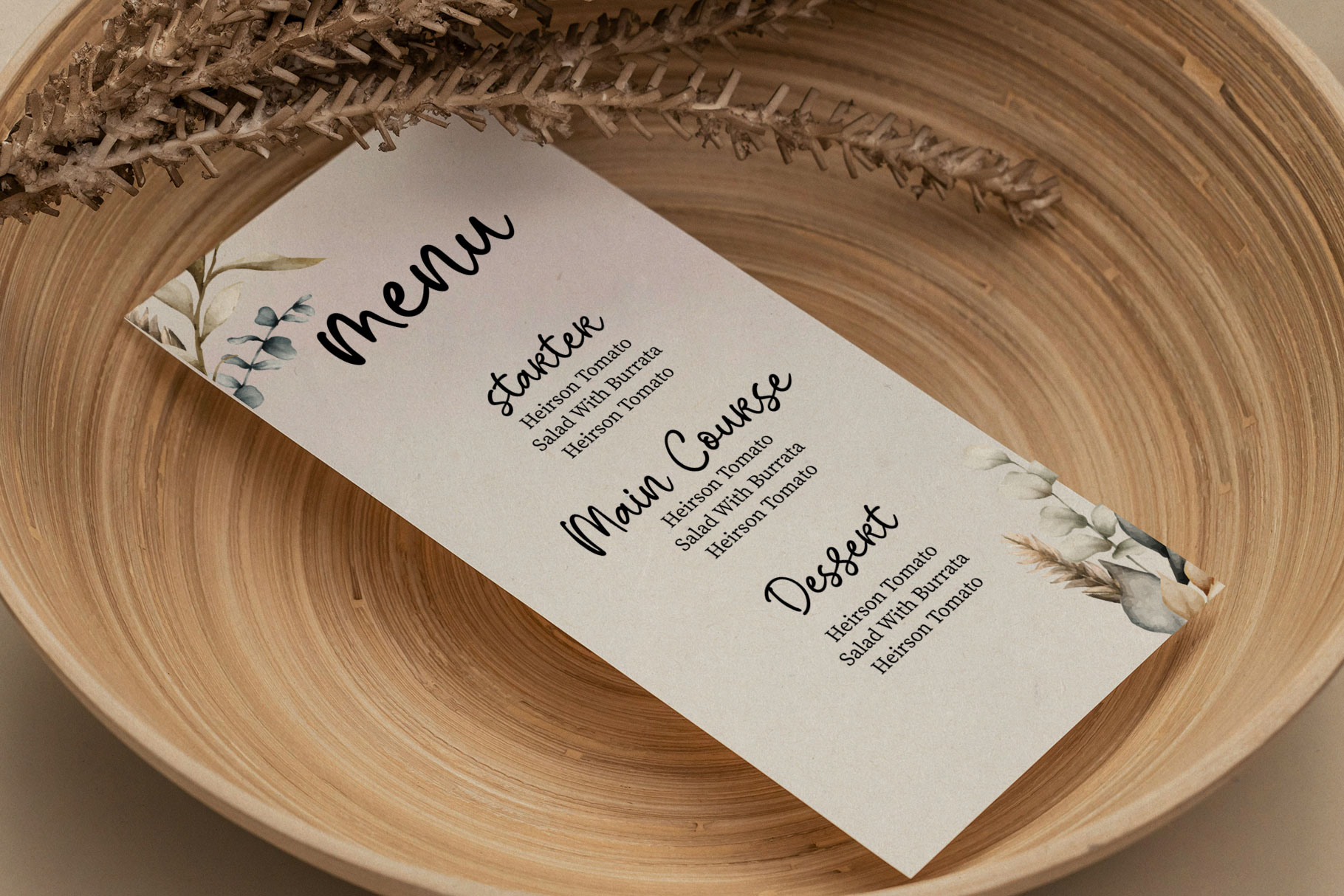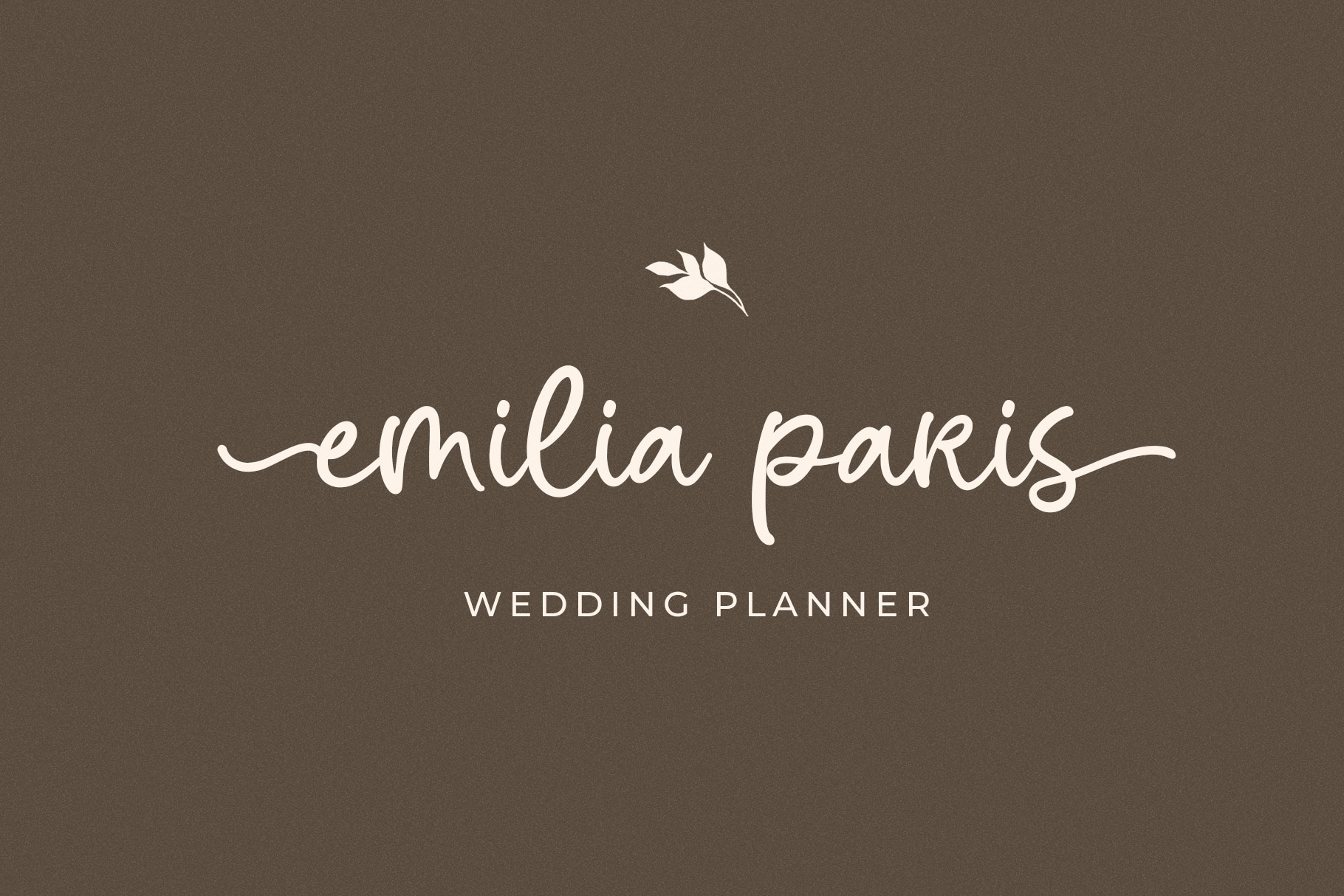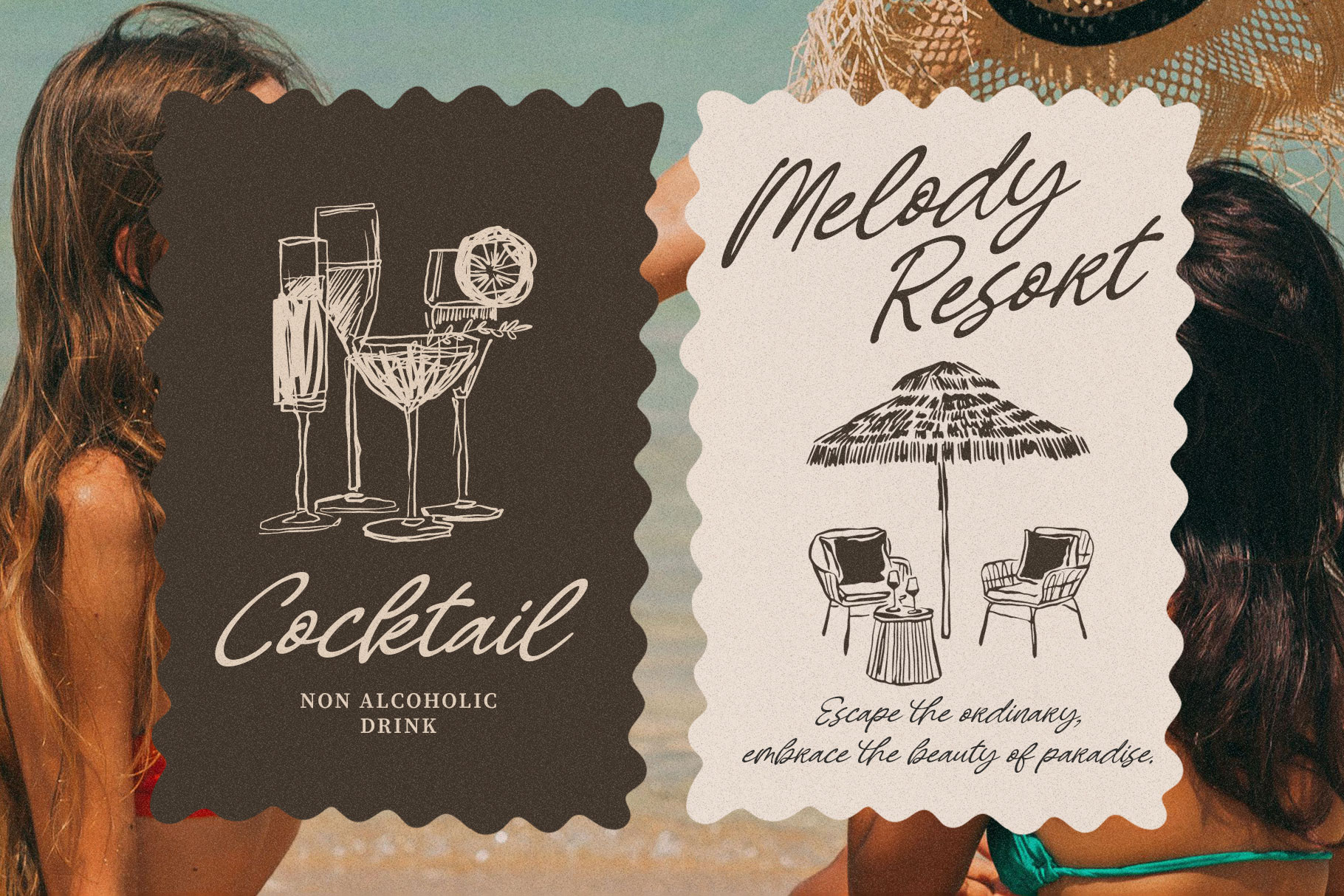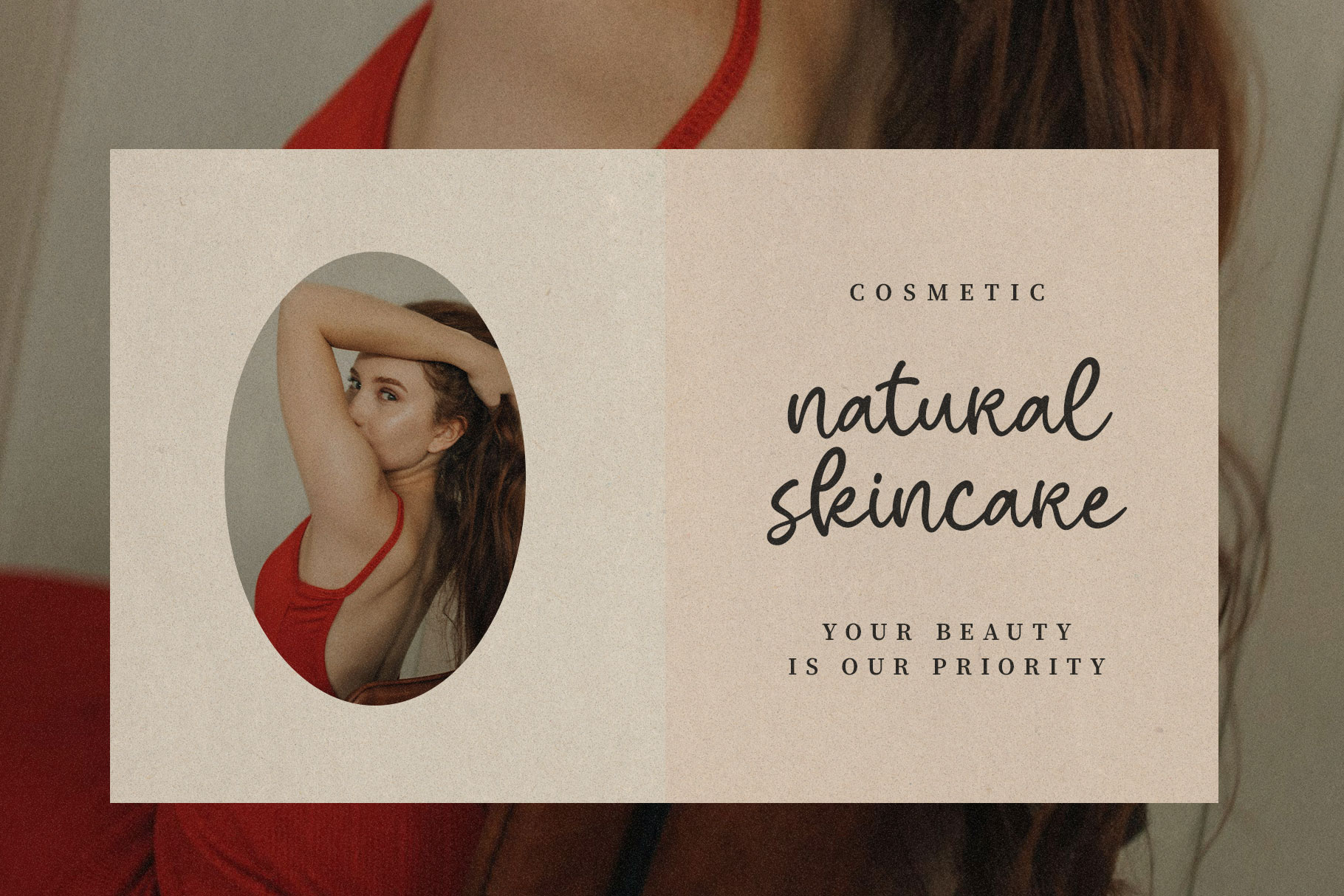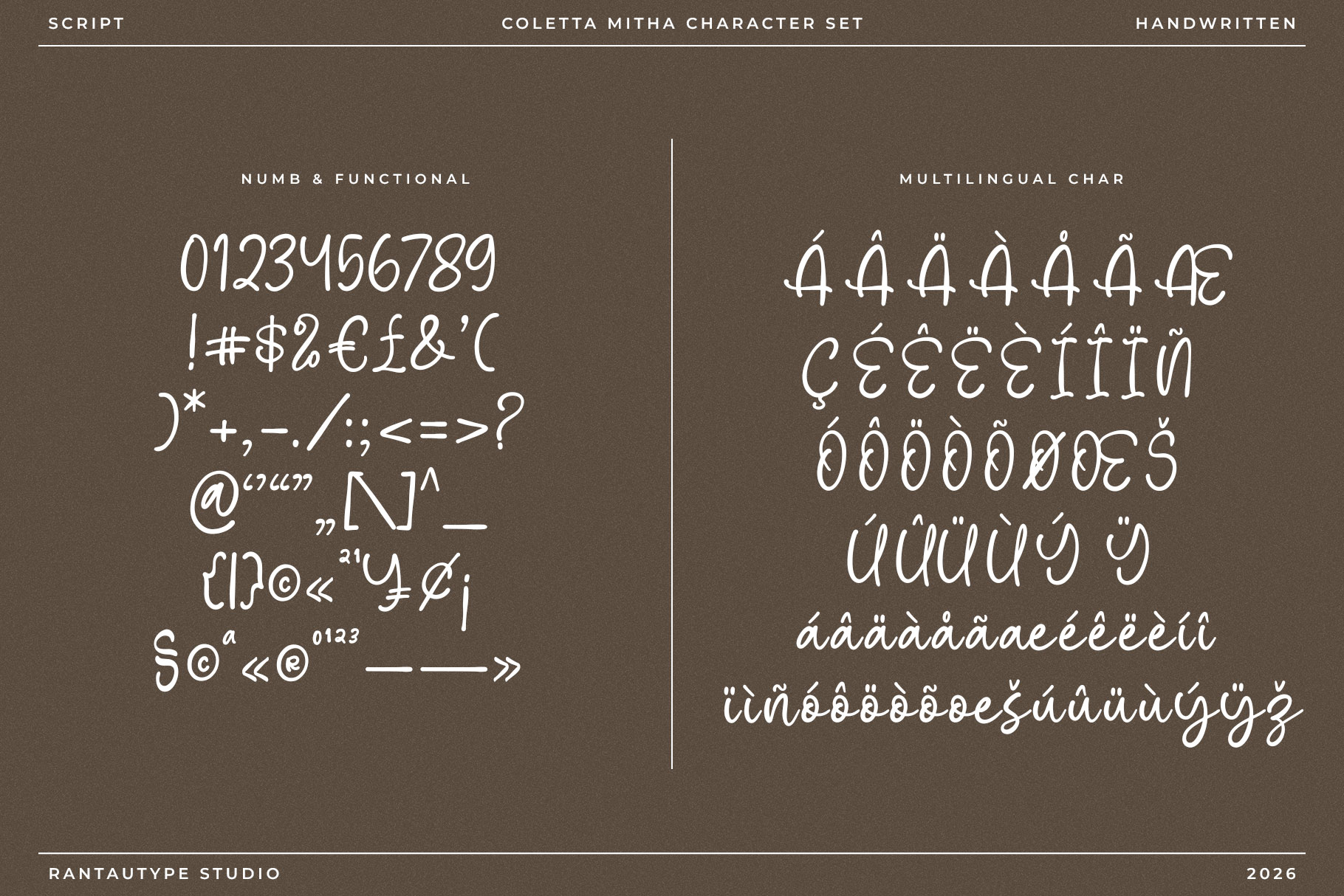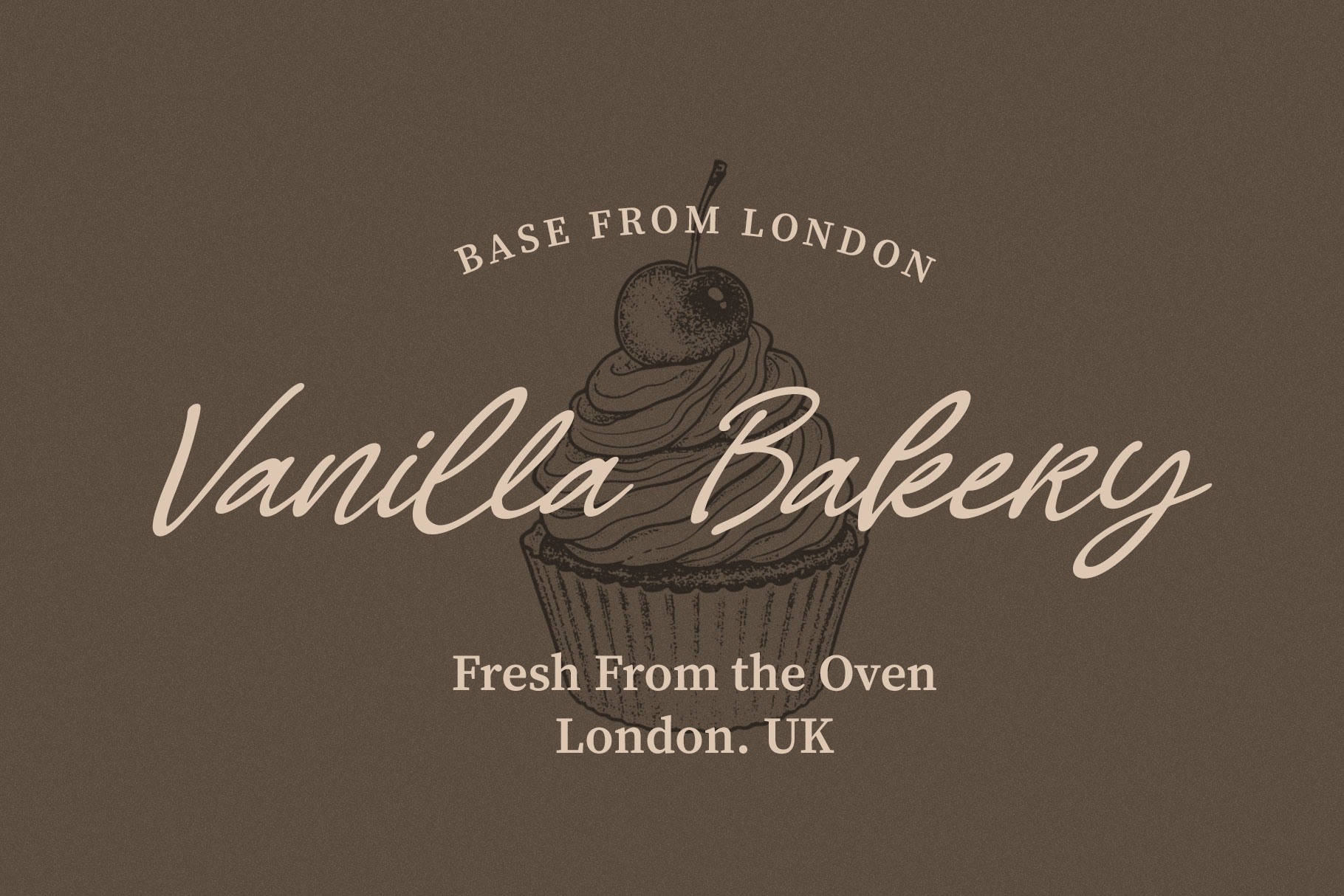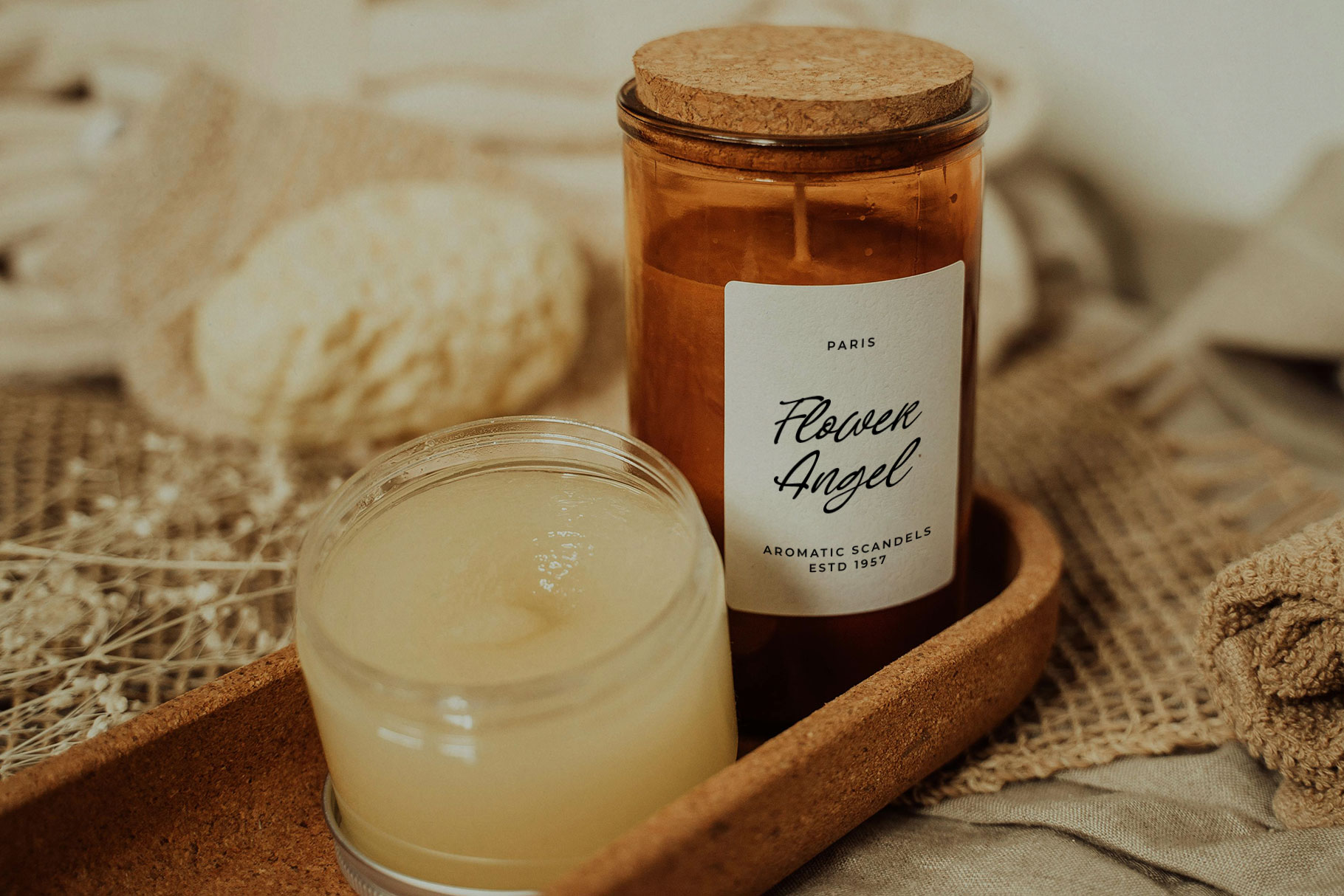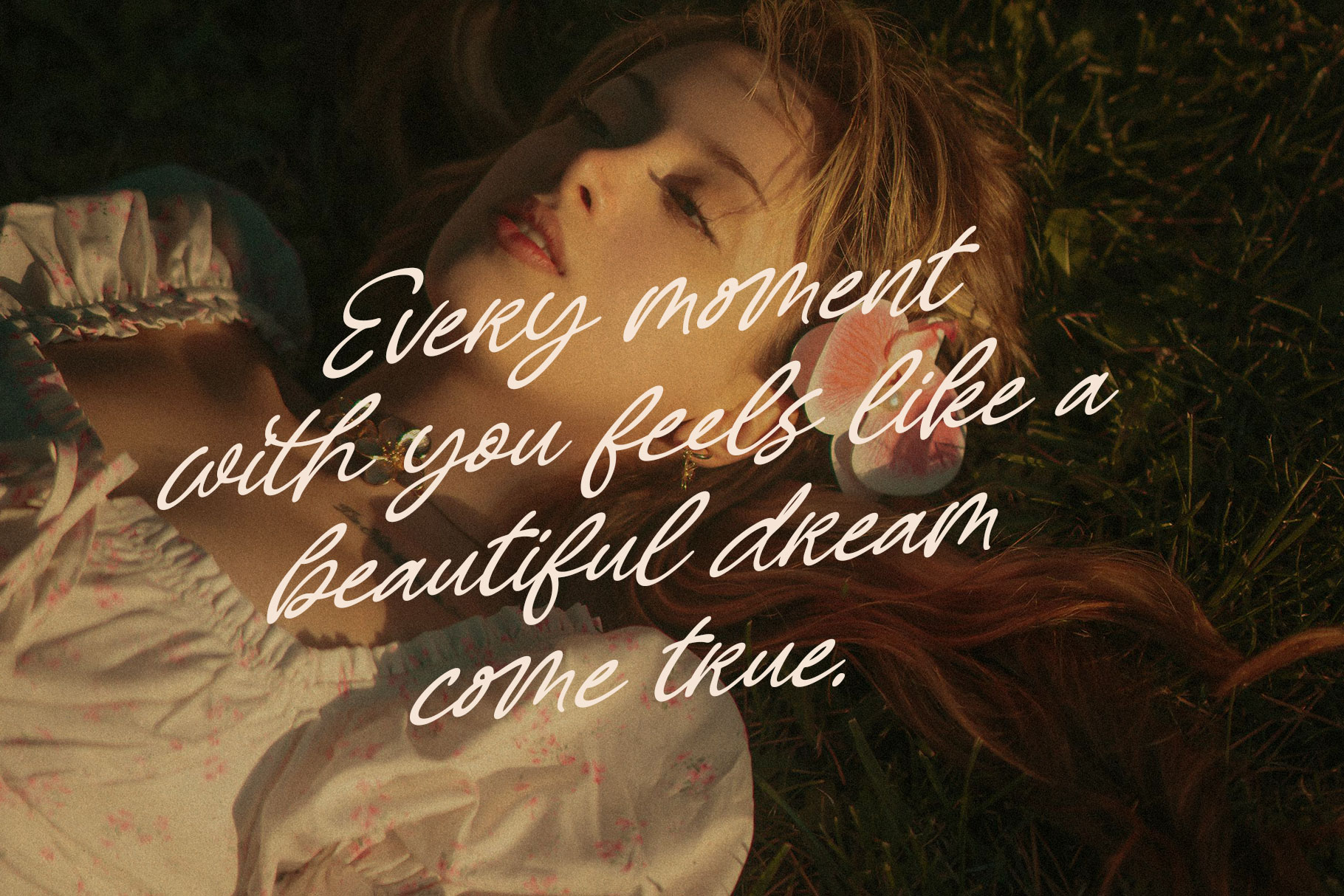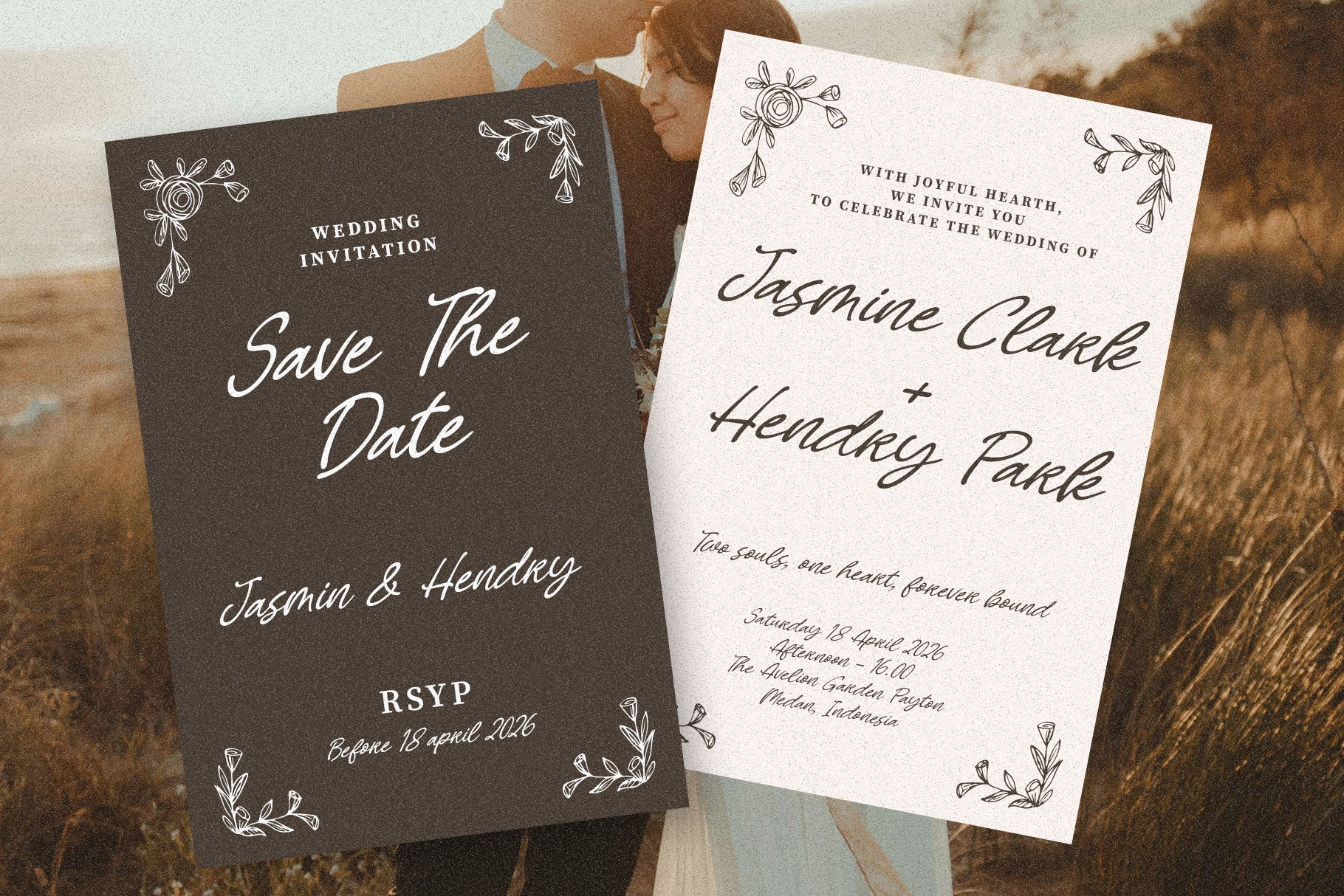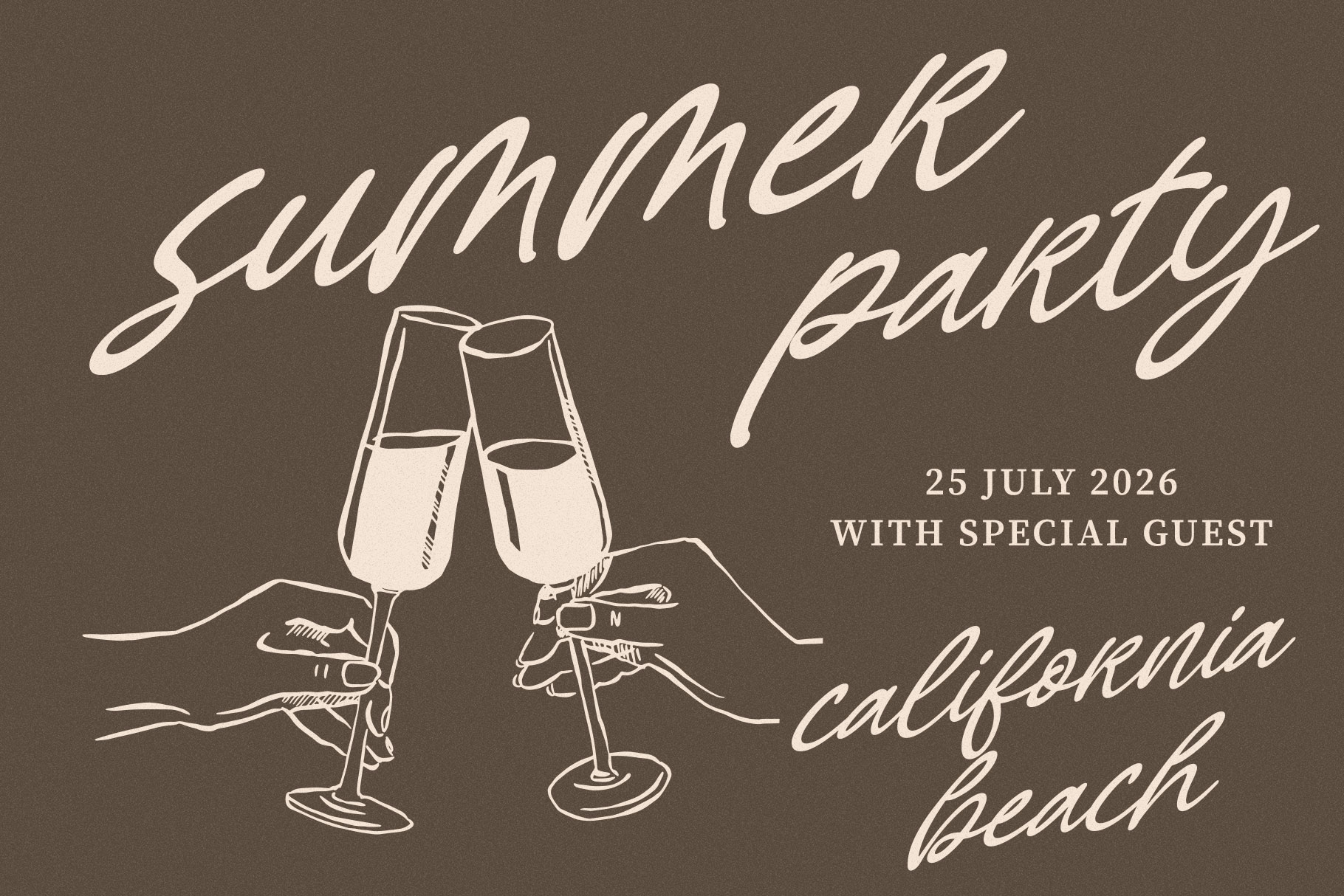
Coletta Mitha Handwritten Script Font
Coletta Mitha is handwritten font with reflects the fluid movement of pen on paper, where every stroke feels intentional yet effortlessly organic. Coletta Mitha is a perfectly choice for any creative endeavor, creating, modern, lifestyle design such as logotype, title, cover, branding, invitations, wedding designs, display and magazine, social media posts, advertisements, printed quotes, product packaging, corporate brand, product designs, labels, photography, watermarks, special events and any other project with modern touch.